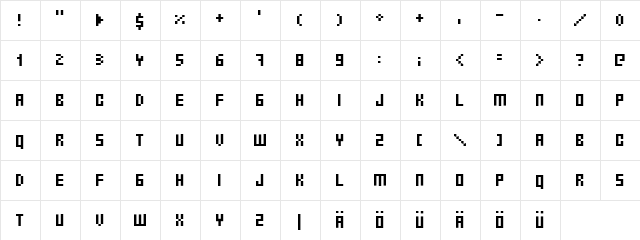
Ernest Regular
| Designer | Marc Misman |
Design Context for Ernest Typeface
Ernest offers clean, dependable letterforms without strong stylistic allegiance, making it a practical choice for designers who need flexibility.